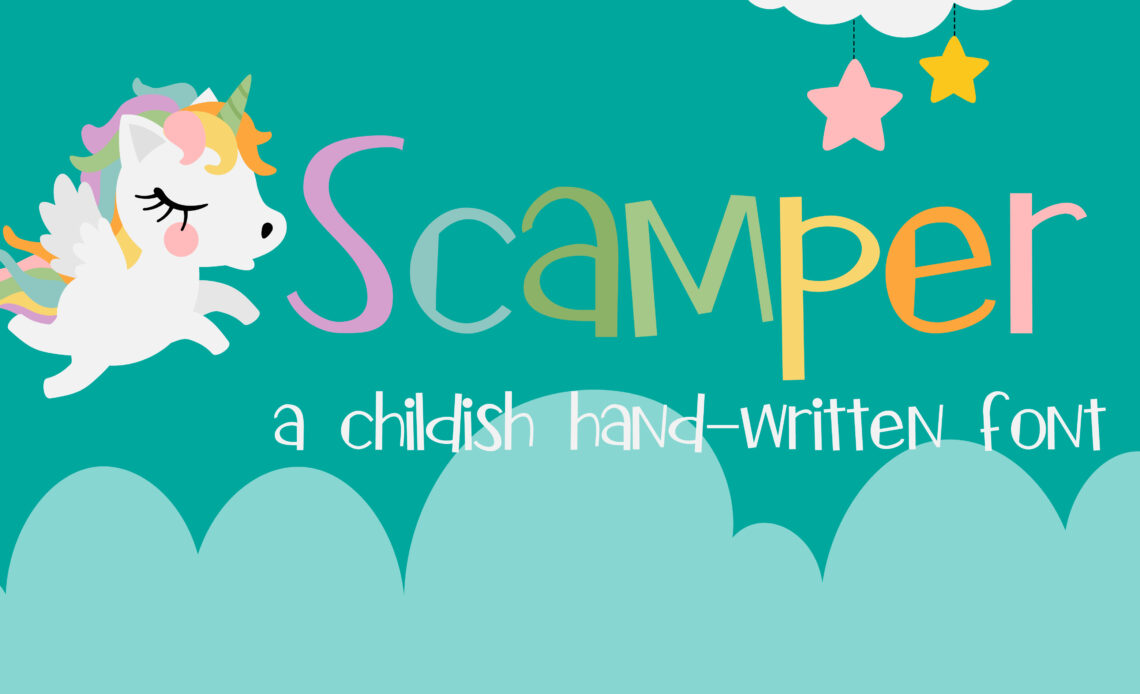
Welcome to the realm of Scamper Font, where childlike charm and youthful expressiveness intertwine to create a font that exudes a warm and inviting aura. Let your designs dance with joy as you unleash the playful spirit of Scamper, a handwritten script font that radiates a captivating innocence.
Imagine a font that effortlessly evokes the wonder of childhood, with its carefree strokes and whimsical nature. Scamper Font is your gateway to a world of boundless creativity, where imagination takes flight and designs come to life with a heartwarming touch.
Scamper has a way of captivating hearts, inviting you to embrace the playful side of life. Its innocent curves and charming imperfections lend a unique character to your creations, making them stand out amidst a sea of ordinary fonts.
Step into the enchanting world of Scamper and discover a font that sparks joy, ignites creativity, and leaves an indelible mark on the hearts of your audience. Whether you're crafting heartfelt messages, designing whimsical invitations, or adding a touch of whimsy to your social media posts, Scamper Font is your perfect companion.
Unleash the magic of Scamper Font today and embark on a creative journey where imagination knows no bounds. Let your designs blossom with childlike wonder and infuse them with a touch of heartwarming delight.